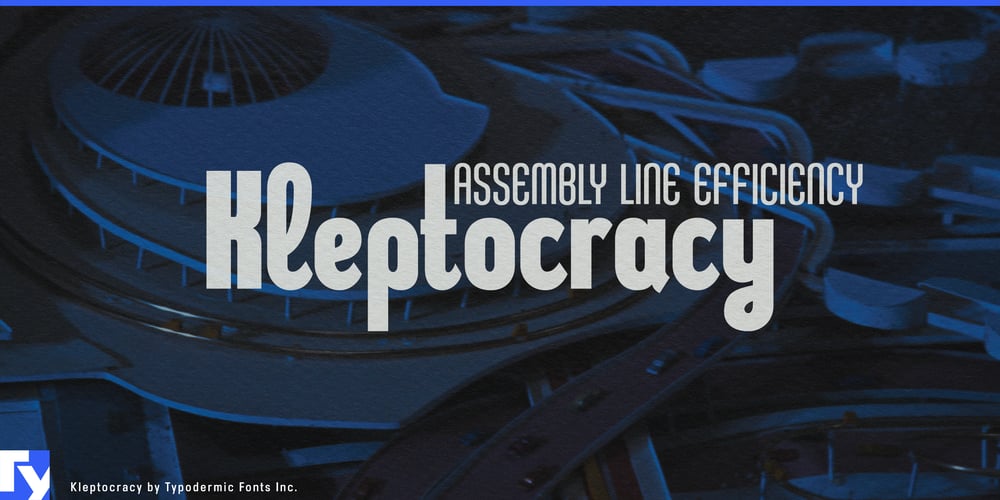
Kleptocracy Font Family was designed by Ray Larabie and published by Typodermic. Kleptocracy contains 18 styles and family package options. Kleptocracy: the typeface that filches function and flair in equal measure. This compact industrial marvel doesn’t just walk the line between utility and elegance—it dances on it with unexpected grace.Forged in the crucible of efficiency, Kleptocracy’s assembly-line design purrs with precision where lesser fonts clank and clatter. Its hard edges and utilitarian lines speak of factory floors and blueprints, but look closer—there’s a subtle rebellion in its DNA. Cursive elements weave through the industrial framework like wildflowers sprouting through concrete, adding a touch of whimsy to its workhorse ethic. Observe the gentle curve of the “g,” a small act of defiance against rigid geometry. Notice how the “y” loops with playful abandon, as if sneaking a moment of joy on the production line. These details transform Kleptocracy from a mere typeface into a storyteller, each character a miniature drama of form versus function.With three weights, three widths, and a full set of italics, Kleptocracy is a master of disguise. It can slip into the tightest layouts or sprawl across billboards with equal aplomb. Its compact design makes it the perfect accomplice for small spaces, while its industrial roots give it the confidence to command attention in any setting. Kleptocracy’s linguistic reach is as ambitious as its design. It pilfers characters from across Europe, supporting a vast array of Latin-based writing systems. From the fjords of Norway to the plains of Hungary, Kleptocracy speaks the language of your audience with industrial precision and a hint of mischief.Ready to embezzle some attention for your next project? Let Kleptocracy be your partner in design crime. It’s more than a font—it’s a heist of harmony, stealing hearts with its perfect balance of strength and subtlety.